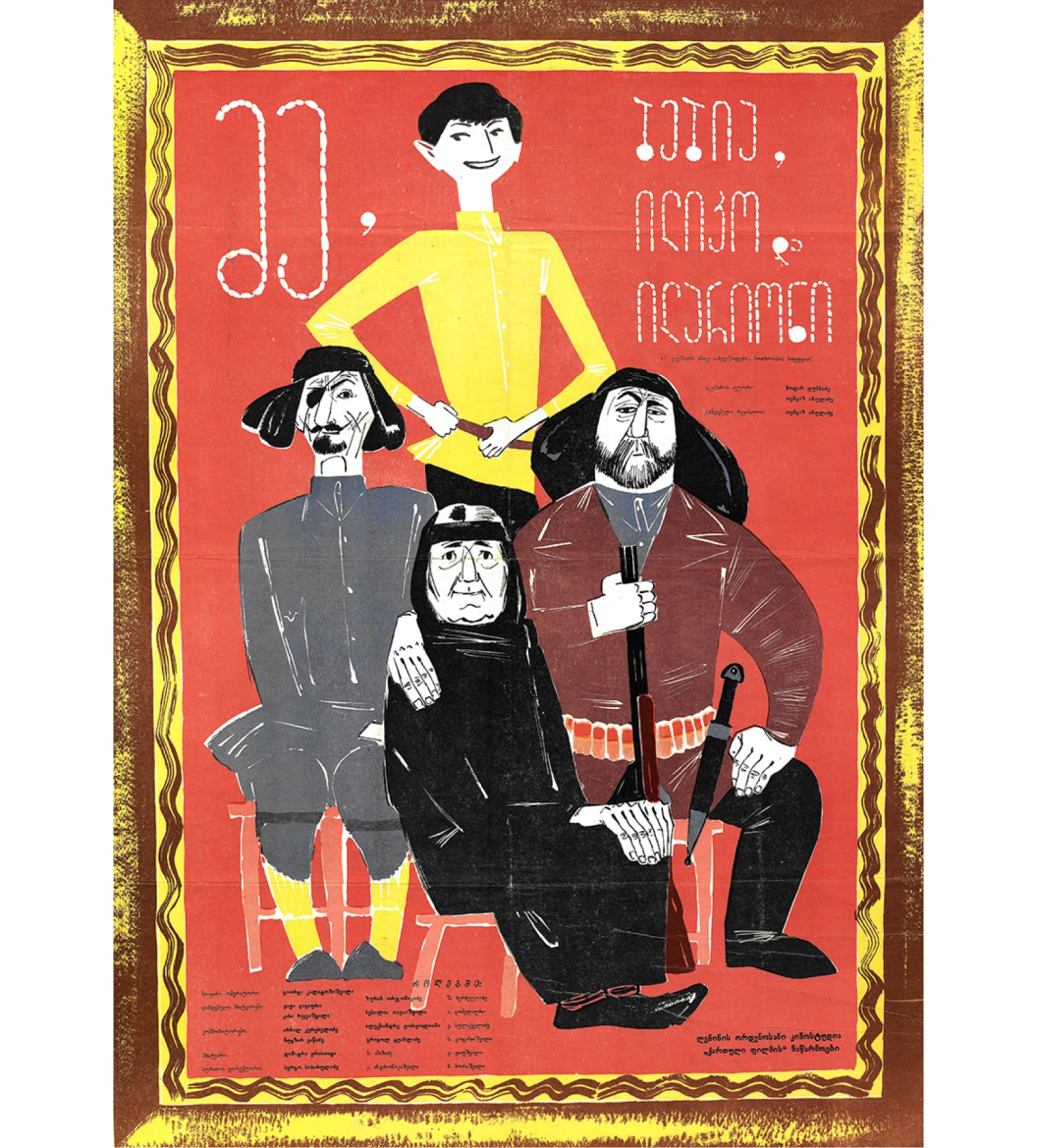
E-codices
In 2005, Professor for Manuscript Studies and Medieval Latin Christoph Flüeler initiated the creation of an online archive to contain the scans of all mediaeval manuscripts stored in Swiss museums and libraries.
In 2006, he launched a website and began reaching out to the institutions from other European countries. The archive currently holds nearly 3,000 materials, with the earliest of them dating back to the 4th century.
Königsfelden Abbey land tax register, 1432–1530
Cartulary II of Königsfelden Abbey, 1417–1530
Pontificale Murense, 1508
Eidgenössische Chronik, Werner Schodoler, 1514–1532
National Archives of Georgia
The National Archives of Georgia covers anything having to do with the history of Georgia and Georgian script: photographed texts on the walls of churches, handwritten manuscripts, books, and film strips.
Researchers studying the history of Georgian script can apply for registration in a library and take one of the documents to explore it once their application is approved.
Prayer book, 1836
Caucasus Map, 1920
Uriel Acosta performance booklet, 1901
Alaverdoba film poster, Gogi Ochiauri, 1962
Me, Bebia, Iliko da Ilarioni (Me, Grandma, Iliko and Ilarion) movie poster, Jemal Lolua, 1962
Flower Festival poster, Tengiz Kartvelishvili, 1990
Canadian Typography Archives
This archive seeks to document the history of pre-digital typography in Canada (before and after it became independent). Now the earliest item of their digital collection dates back to 1751, while the most recent is 1985.
The collection is categorised into nine sections: Advertising and Promotion, Designers, Typographers and Letter Artists, Early Printing and Type, Graphic Design and Branding, Publications, Private and Small Presses, Signage and Wayfinding, Trade and Craft, Typeface Design.
The team is currently engaged in studying the writing system of indigenous people of Canada and invites others to join their research.
Cartier Roman typeface, Carl Dair, 1967
Design for Printing, E. B. Eddy Paper Company, Carl Dair, 1947
Type Talks, Carl Dair, 1948
Corner of the city Mono Lino typesetting advertising, Herb Graab, 1963
Cockney Slang poster, Jim Donoahue and Al Elliott, 1970
Design Archives
The collection compiled by designer Valery Marier not only features static images (such as specimens, books, branding), but also presents an entire section dedicated to interactive design related items of the 20th century, which, for instance, offers you to log into Windows 95 with any modern computer.
Valery Marier’s archive also has a vast selection of type design literature, ranging from a 17th century typography handbook to publications by Ellen Lupton.
Emigre magazine, 1990
Typefaces catalogue, Schelter & Giesecke, 1927
Manuel typographique, Pierre Simon Fournier, 1764
Apple Logo Standards, 1987
Type, Typewriter, and Typography Catalogs
A collection on archive.org, brought together by archivist Jason Scott, holds 200 documents of the 19-20th centuries that are one way or another related to type and typography. For example, the selection includes a catalogue of American Type Founders foundry, price lists for Monotype machine details, and even scanned patents for various kinds of hot metal typesetting machinery.
ATF Foundry catalogue, 1955
Baltimore type catalogue, 1946
Line-O-Scribe catalogue, 1938
Monotype: A Journal of Composing Room Efficiency, 1924
Brutalist websites
Unlike all the other archives in this selection, this one doesn’t have any scanned materials. Brutalist Websites store the examples of Brutalist typography on the Web. Those are mostly online zines and design studios’ portfolios, but also some real life projects, such as a website of a literary award and a mobile carrier webpage. Some of these sites are no longer available or their design is now different, which is why this archive is the only place where you could see them.
AWGE studio website
PART architectural bureau website
The Black Shoes music band website
Pieter Paul Pothoven personal website